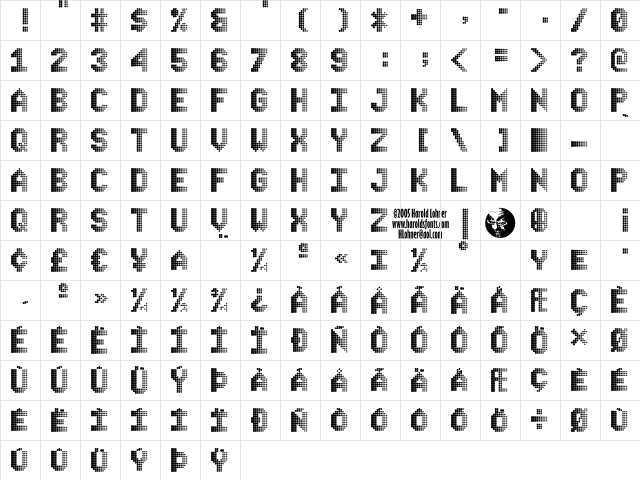
ChaserLeft Regular Font Preview
ChaserLeft Regular
Design Context for ChaserLeft Typeface
ChaserLeft is a composed and adaptable typeface that performs quietly and consistently across a wide range of design contexts.